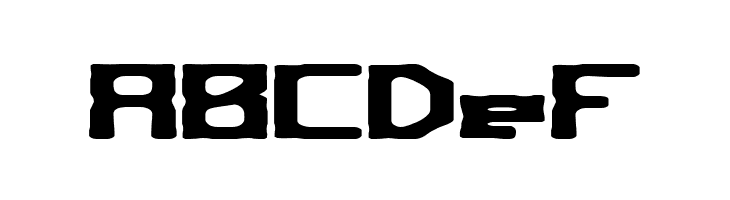
Almond_Milk Font
- Font: Almond_Milk
- Weight: Medium
( Fonts by Mr Fisk - Mike Larsson - fontorama.net )
A chaotic, splattered font with irregular shapes and varying stroke thicknesses.